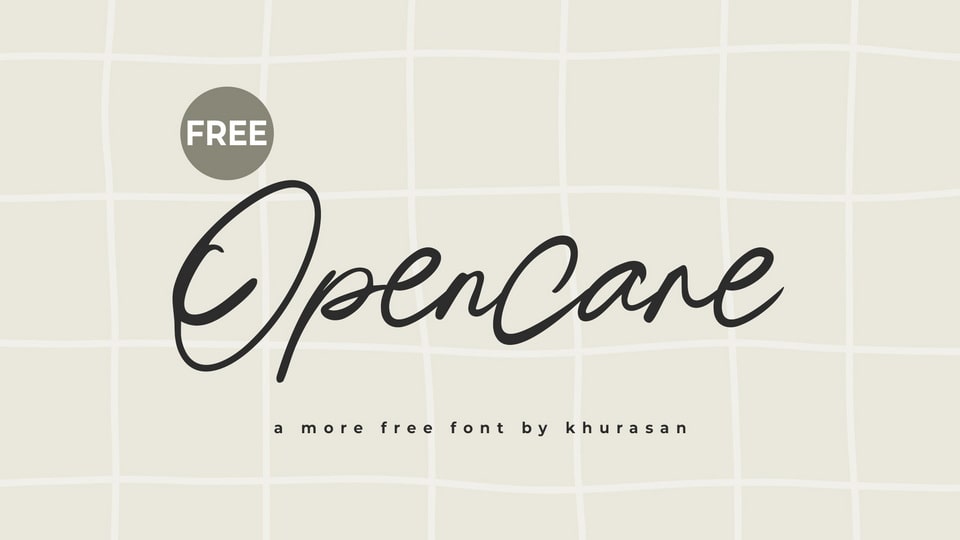
Download Opencare font, a casual and heartfelt handwritten script typeface designed to convey warmth and approachability with its flowing letterforms and natural rhythm.